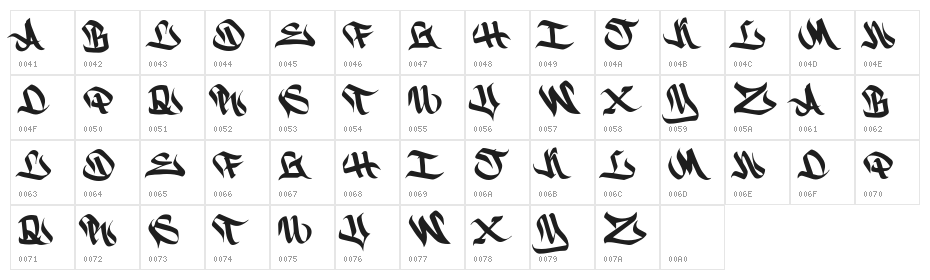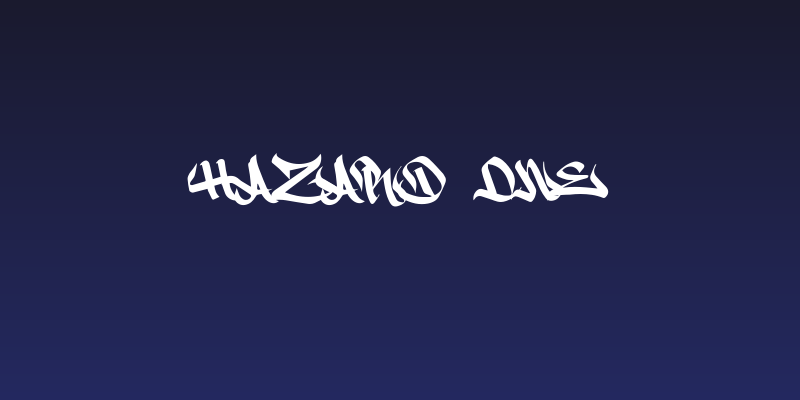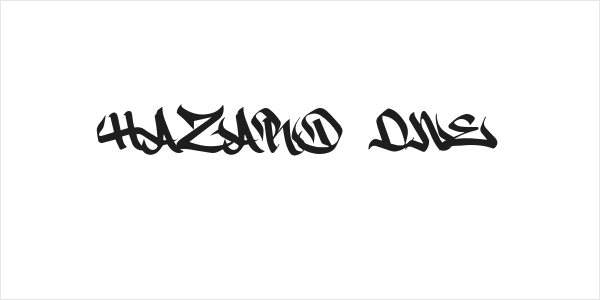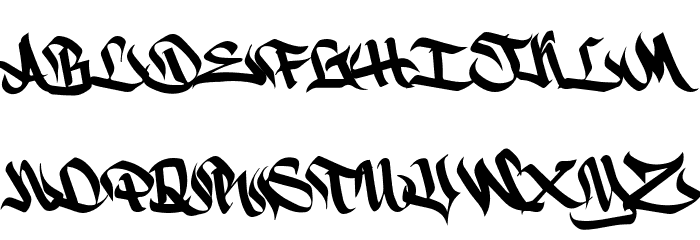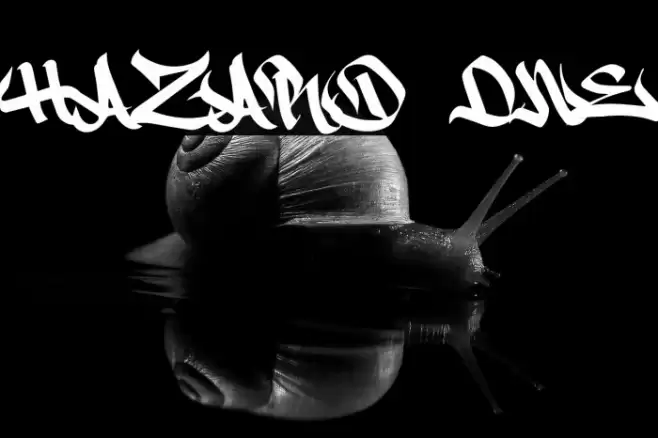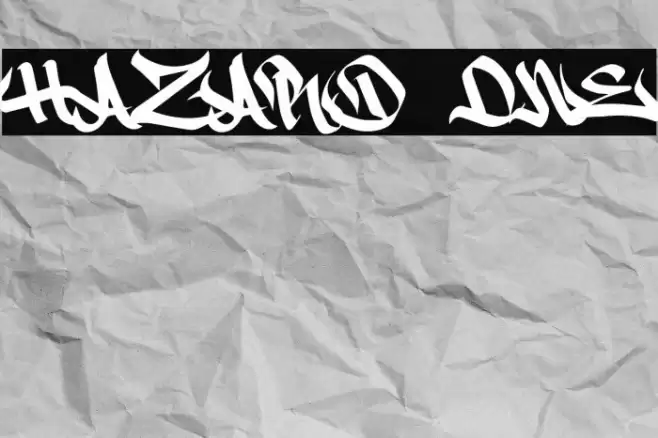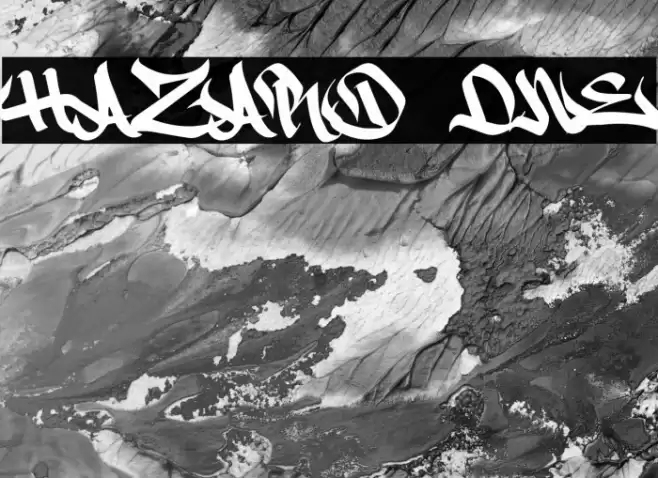
Hazard One Font
| Stile generale | Urban, Edgy, Graffiti |
| Caso d'uso | Logos, Posters, Album Covers |
| Progetti proposti | Perfect for street art designs, edgy branding, music album covers, and urban-themed posters. |